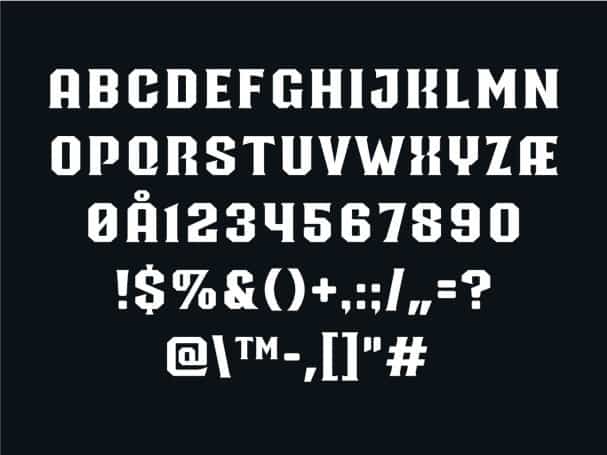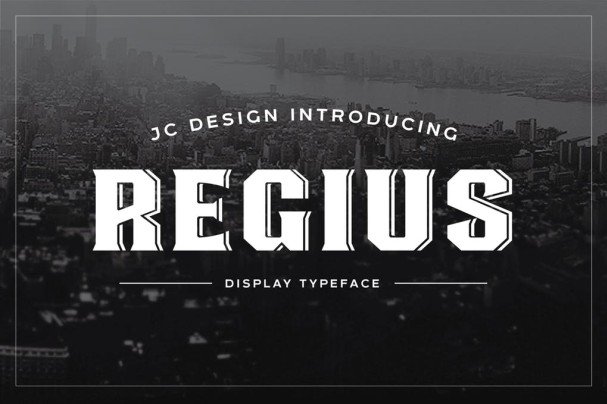
Regius Font
Regius Font became stimulated by a data flora and the high-quality Bodoni family. It is certainly an unfastened serif typeface.  The list of them maintains on and on. While this font turned into made their aim was to offer it a touch bit of modernism to a serif font. They labored on it curves of a conventional serif font and add greater of additional trade stencil to it.
The layout is based totally on Roman square capitals, as used for the inscription at the bottom of Trajan’s column from which the typeface takes its name Regius Font Free Typographers, typeface designers, and others may tell you that there are various apercu font each with their personal historical and technical definitions. This font can easily be discovered on adobe. Butler is a lovely, sensitive difficult script font. The excessive lines, skinny accents, and subtle serifs supply it an elegant, yet modern-day look.
It’s present day-day, formidable, and energetic, however no longer too whimsical. Even though there are many versions of coet font, the maximum used version these days is the adobe itc Garamond model (as visible above) released in 1989.it has Typekit and special issue about this font is that it may be without problems download on mac. Download Due to the reality current-day layout evokes our imagination to surprise and push obstacles, futuristic typefaces are typically breaking the mildew in the maximum cute approaches. A few classifications you may have heard of include vintage fashion, morva font, or humanist.
It clearly grabs interest and is extraordinary for added excessive elegance, extravagant messages.